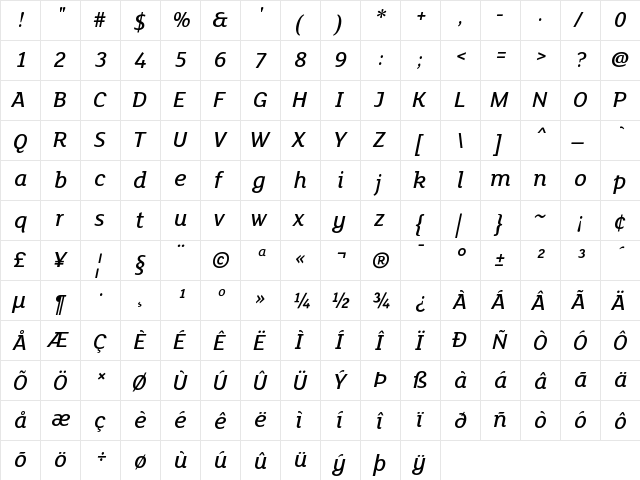
FS Lola Medium Italic Regular
Design Context for FS Lola Medium Italic Typeface
FS Lola Medium Italic is a composed and adaptable typeface that performs quietly and consistently across a wide range of design contexts. The dynamic lean of this cut emphasises speed and emphasis in any layout.
Pro Tip: Use FS Lola Medium Italic for emphasis, pull quotes, and subheadings where its slanted energy can add rhythm to the layout.